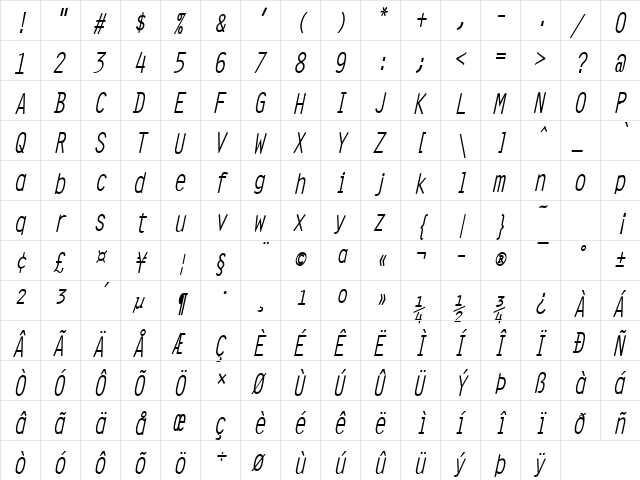
Clean-Condensed Italic
Design Context for Clean-Condensed Typeface
Clean-Condensed is a composed and adaptable typeface that performs quietly and consistently across a wide range of design contexts. The slanted form adds forward momentum and visual energy. The condensed width makes it efficient for tight spaces without sacrificing legibility.
Pro Tip: Use Clean-Condensed for emphasis, pull quotes, and subheadings where its slanted energy can add rhythm to the layout.